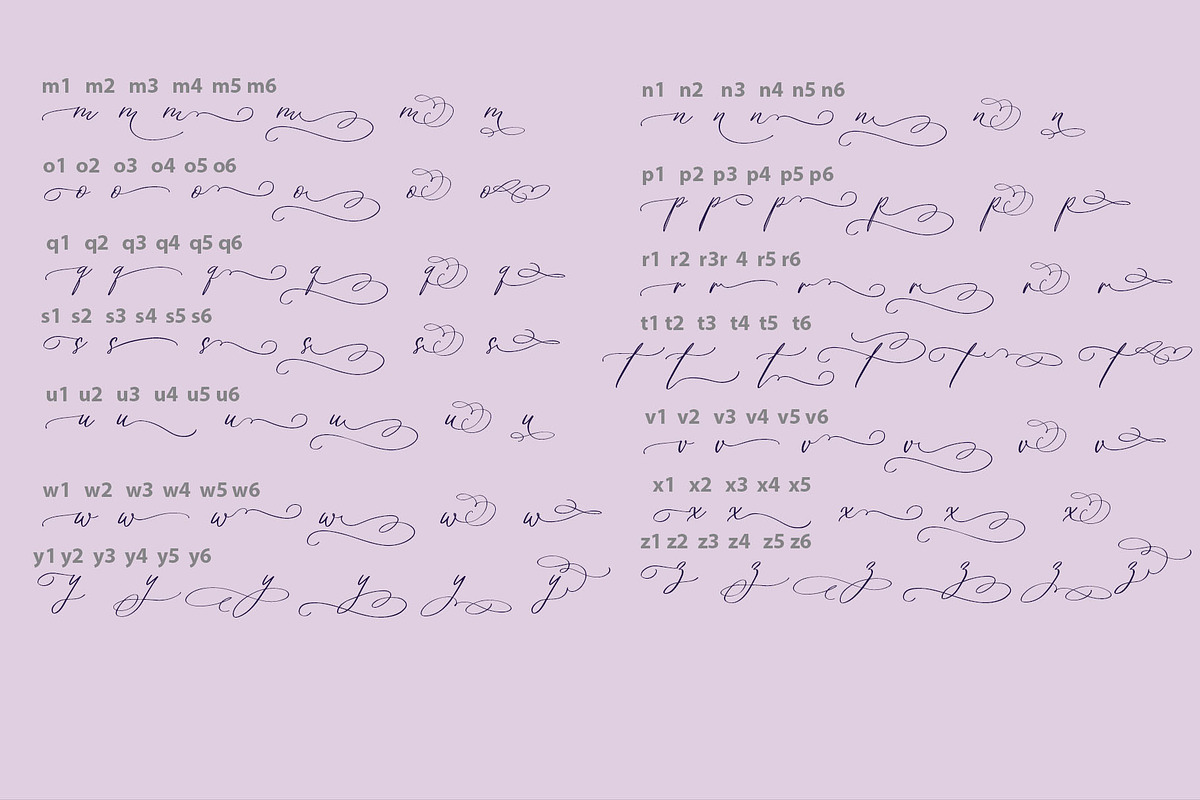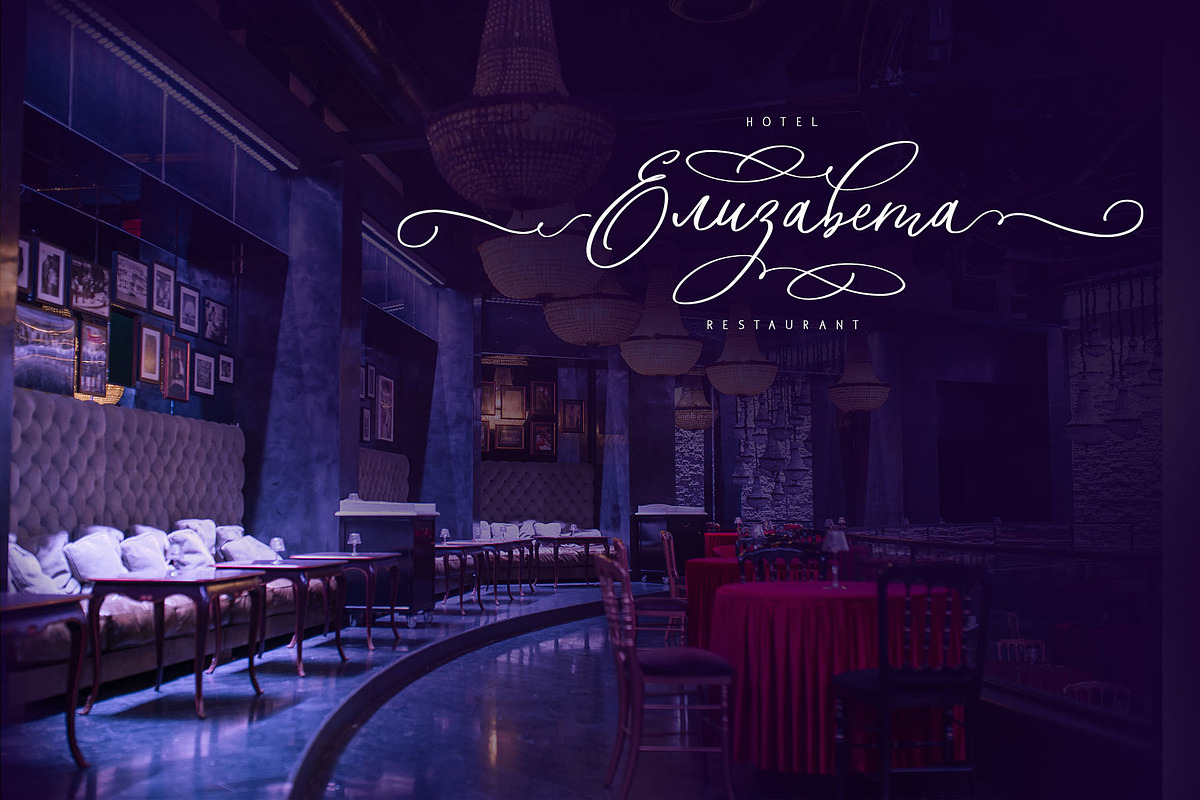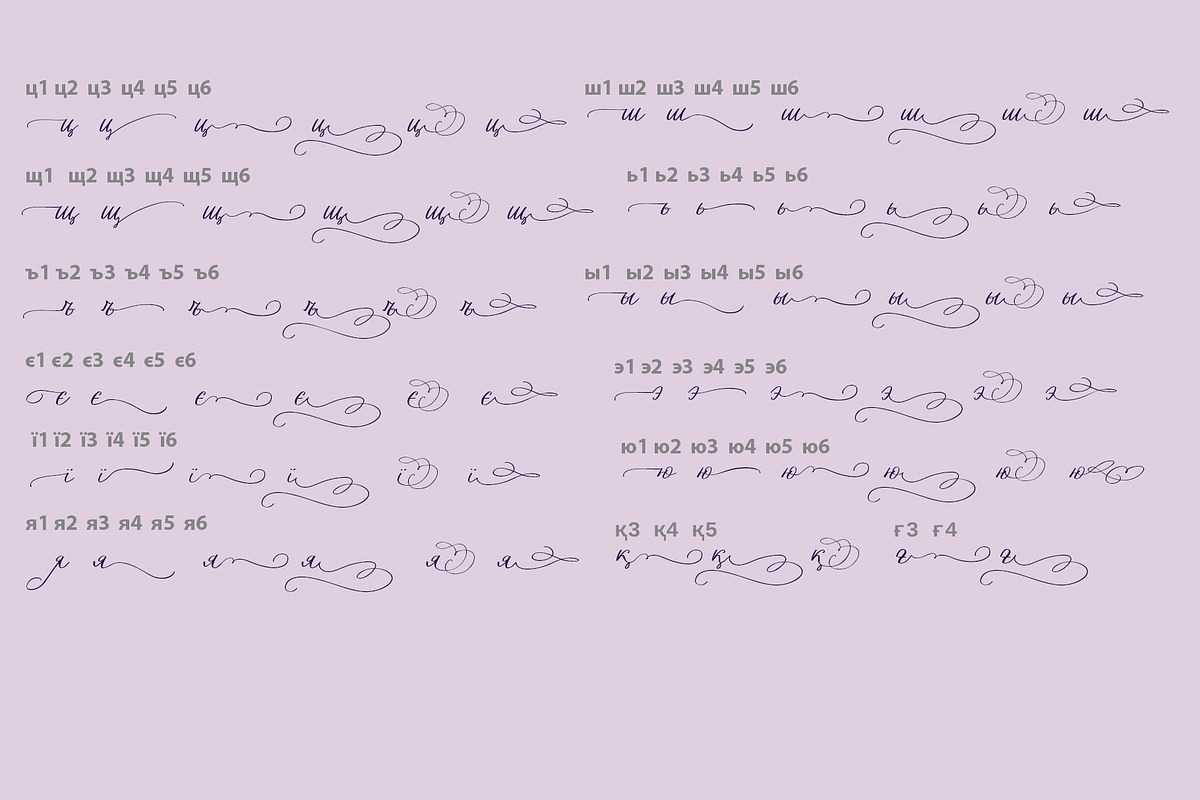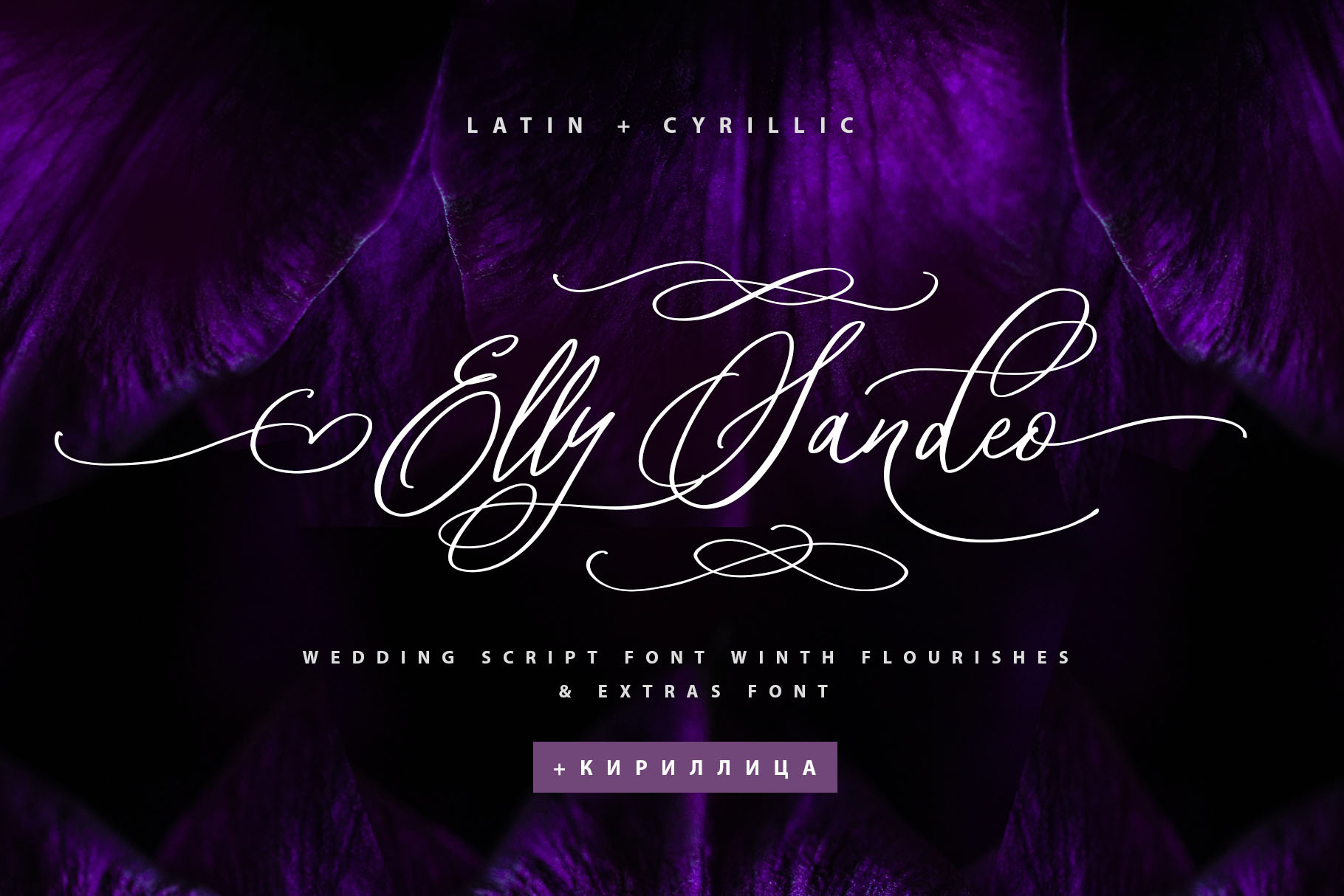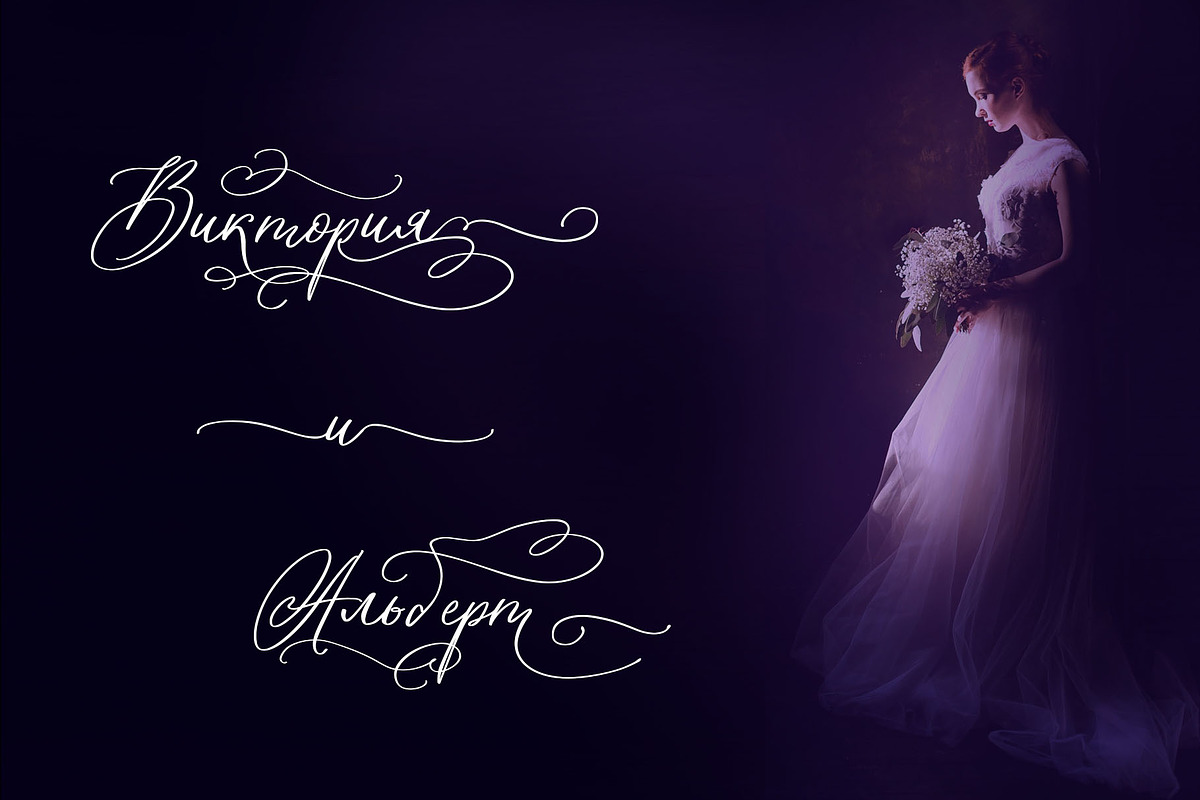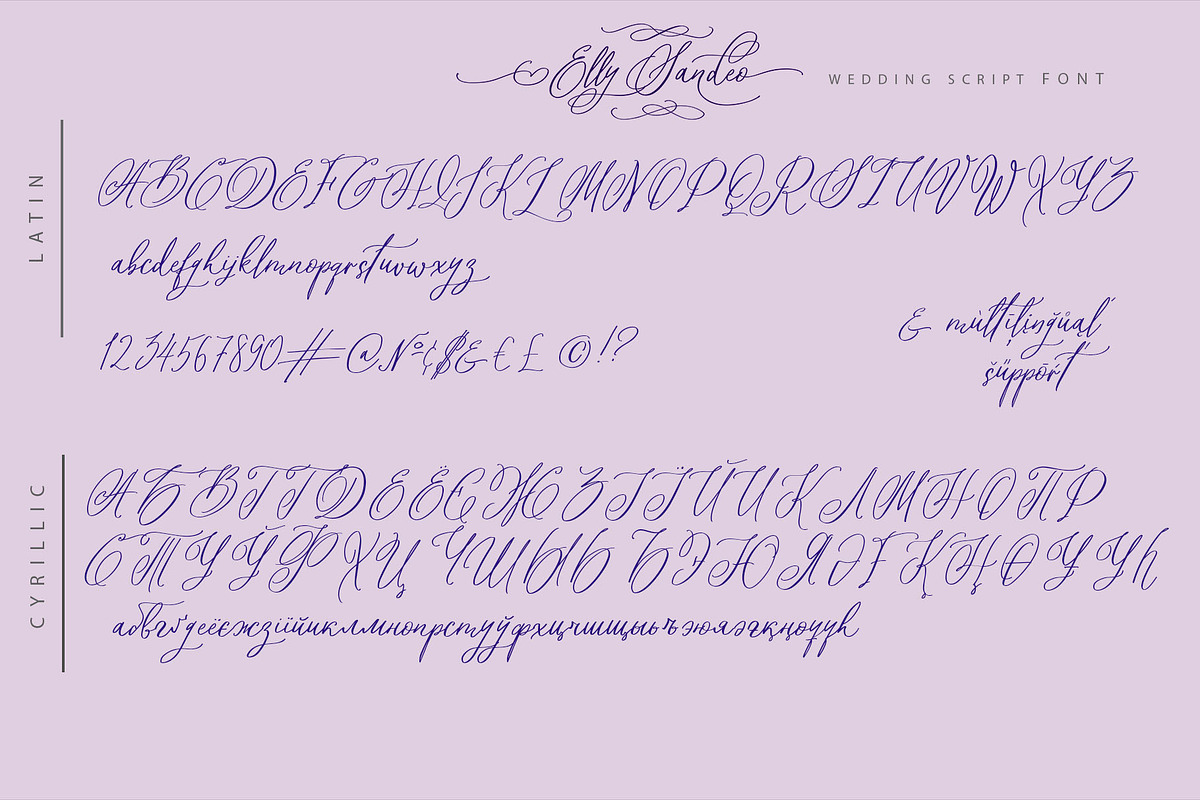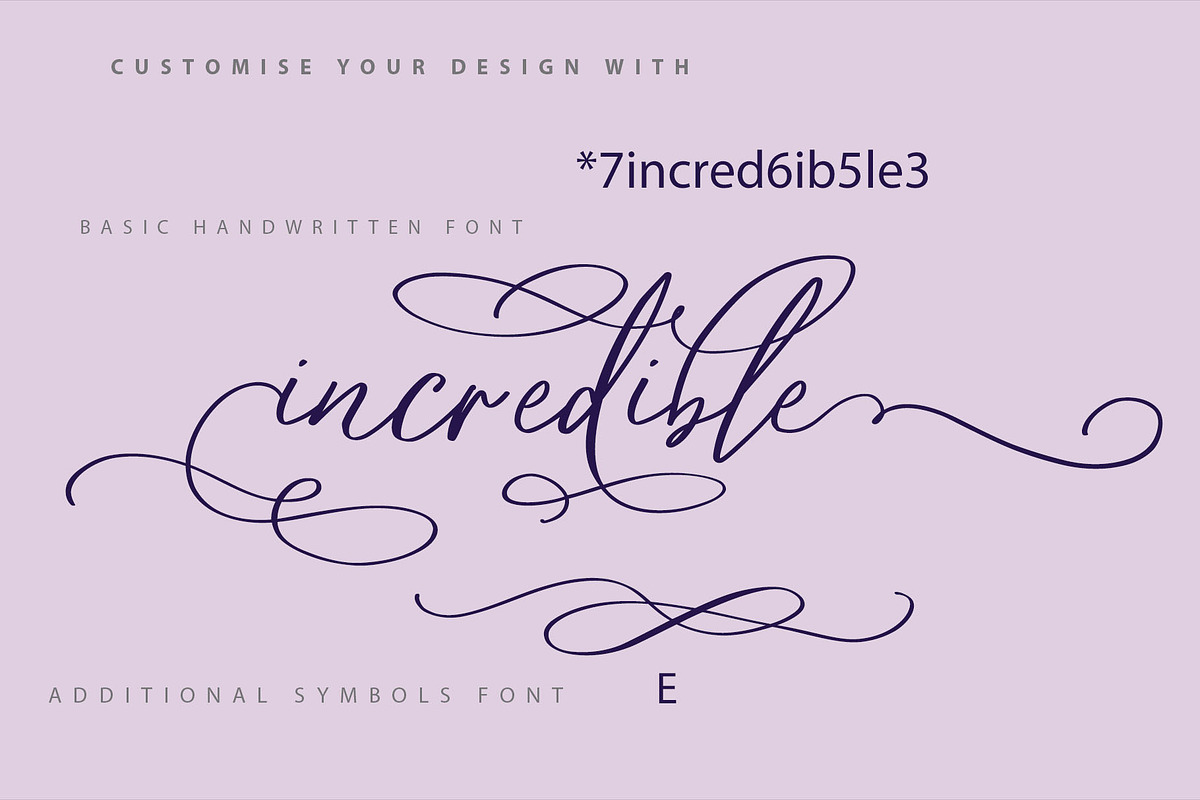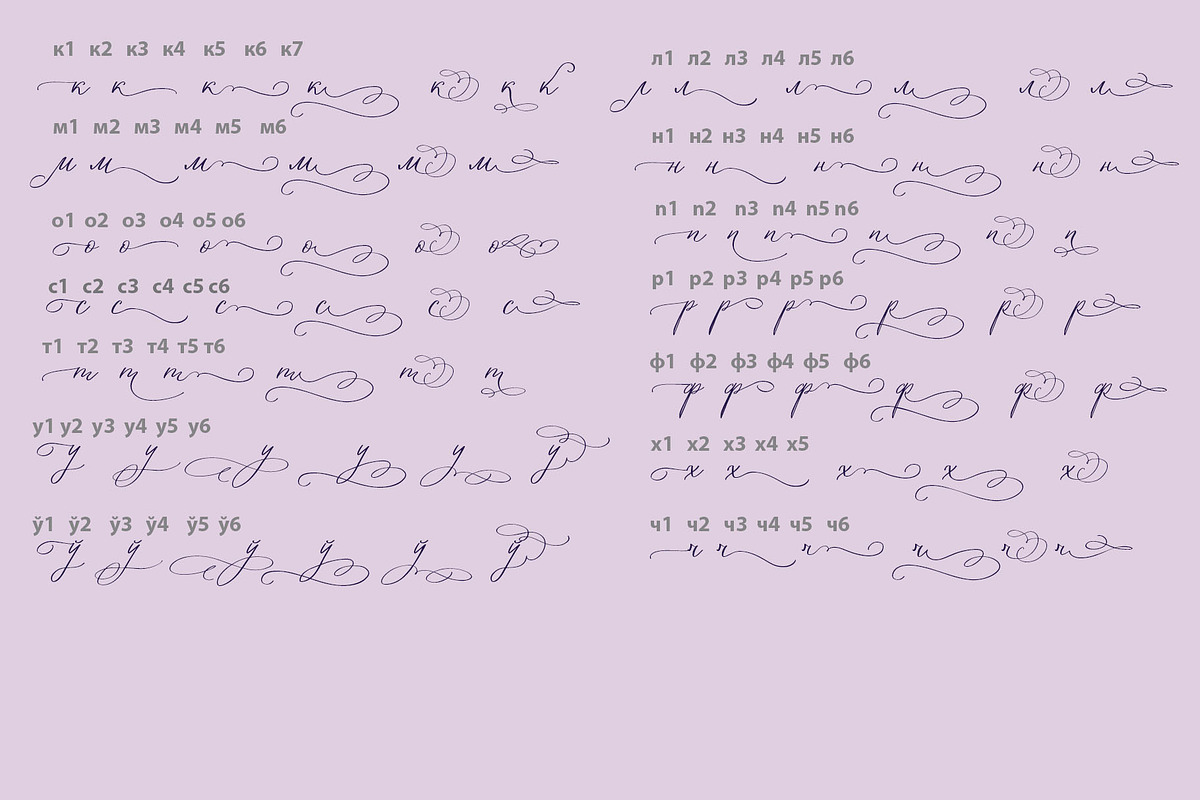
Elly Sandeo Wedding Cyrillic font
The Elly Sandeo Cyrillic font is a handwritten calligraphic wedding script font with flourishes. It is the font pair with will be the best option for branding, logos, wedding invitations, social media, packaging, business cards, DIY projects, social media, and many others.
Elly Sandeo Latin part contains a full set of uppercase and lowercase letters. Also, lowercase letters have 6 sets of variable flourishes with teils. To make a needed form type a letter with a number such as a1, a2, a3, a4... b1, b2, b3... c1, c2, c3...after that select the word and apply the Open Type Features in programs such as Adobe Illustrator, Photoshop, and others
And 17 ligatures can be used to create a handwritten calligraphy look.
The Cyrillic part of the font contains uppercase letters and 2 complete sets of lowercase letters, (standard, and final form. To make a needed form type a letter with a number such as a1, a2, a3, a4... б1, б2, б3... в1, в2, в3... After that select the word and apply the Open Type Features in programmes such as Adobe Illustrator, Photoshop, and others)
The Elly Sandeo Symbols is a font with 26 hand-drawn elements and swashes that can help you to make your design unique and matchless. just use A-Z and a-z keys in the included Symbols font. A different symbol is assigned to each uppercase or lowercase standard character, so you do not need graphics software, just type the letter you need.
Multilingual Support for 33 languages: Latin glyphs for Afrikaans, Albanian, Basque, Bosnian, Catalan, Danish, Dutch, English, Estonian, Faroese, Filipino, Finnish, French, Galician, Indonesian, Irish, Italian, Malay, Norwegian Bokmål, Portuguese, Slovenian, Spanish, Swahili, Swedish, Turkish, Welsh, Zulu.
And Cyrillic glyphs support Russian, Belorussian, Bulgarian, Ukrainian, and Kazakh languages.